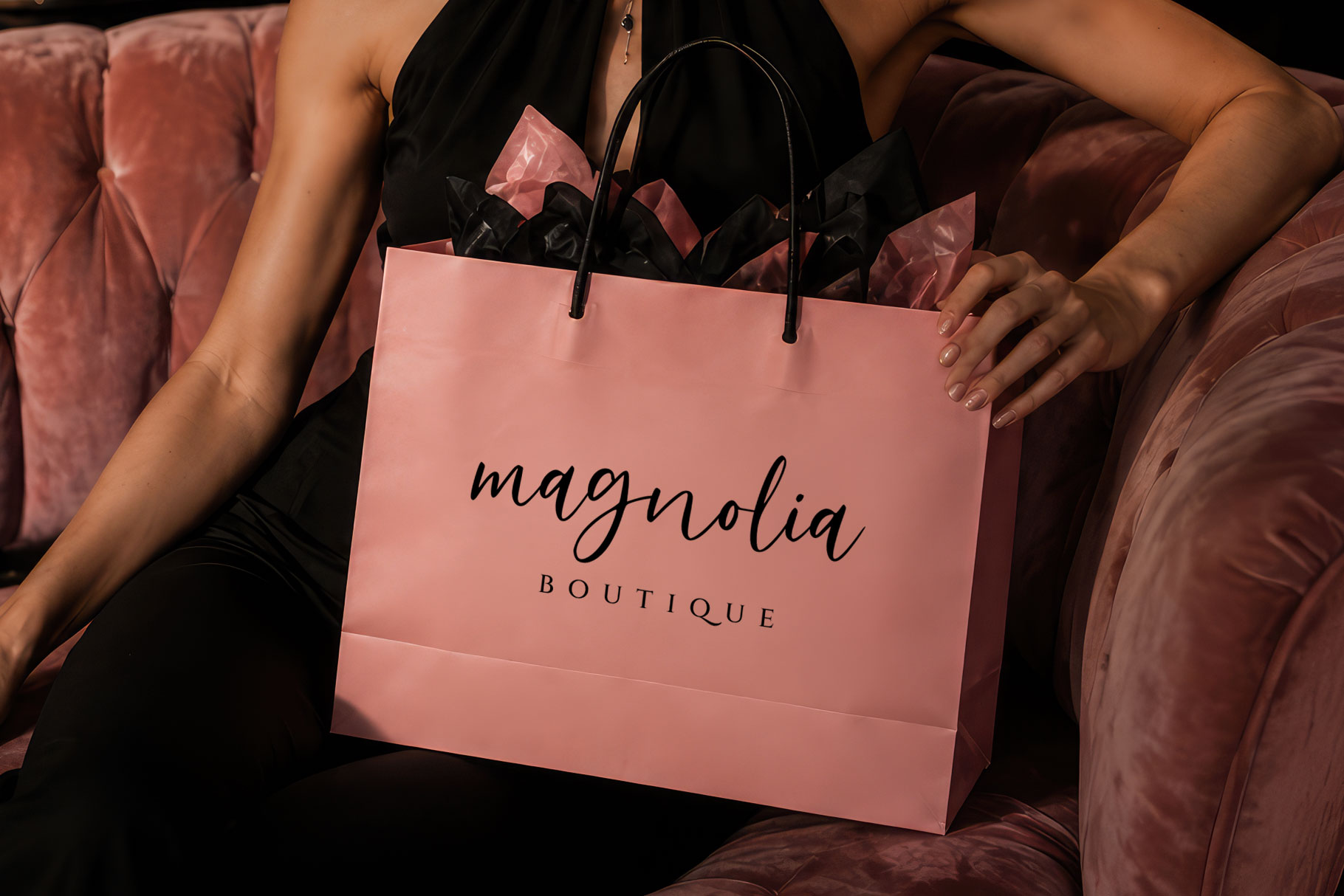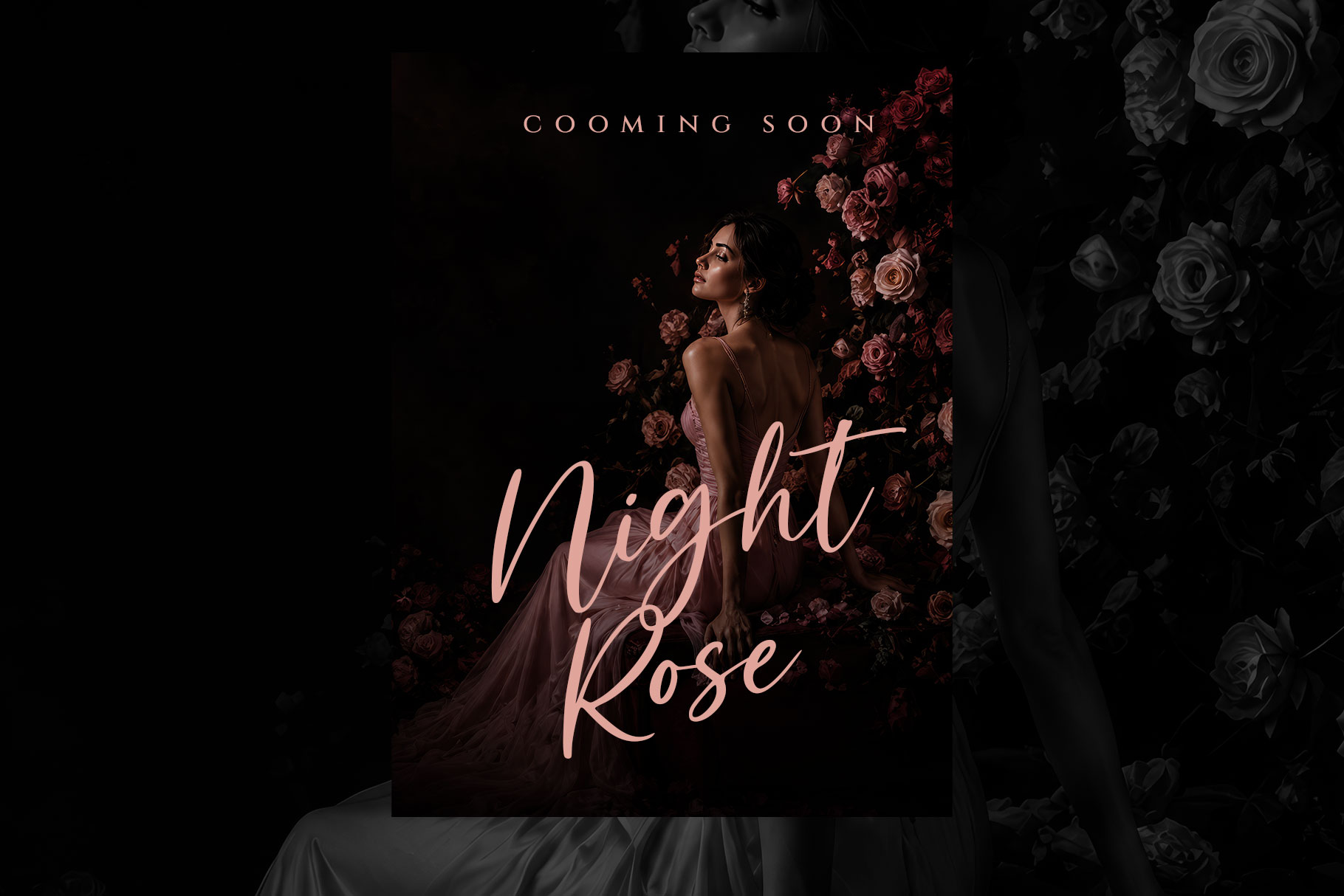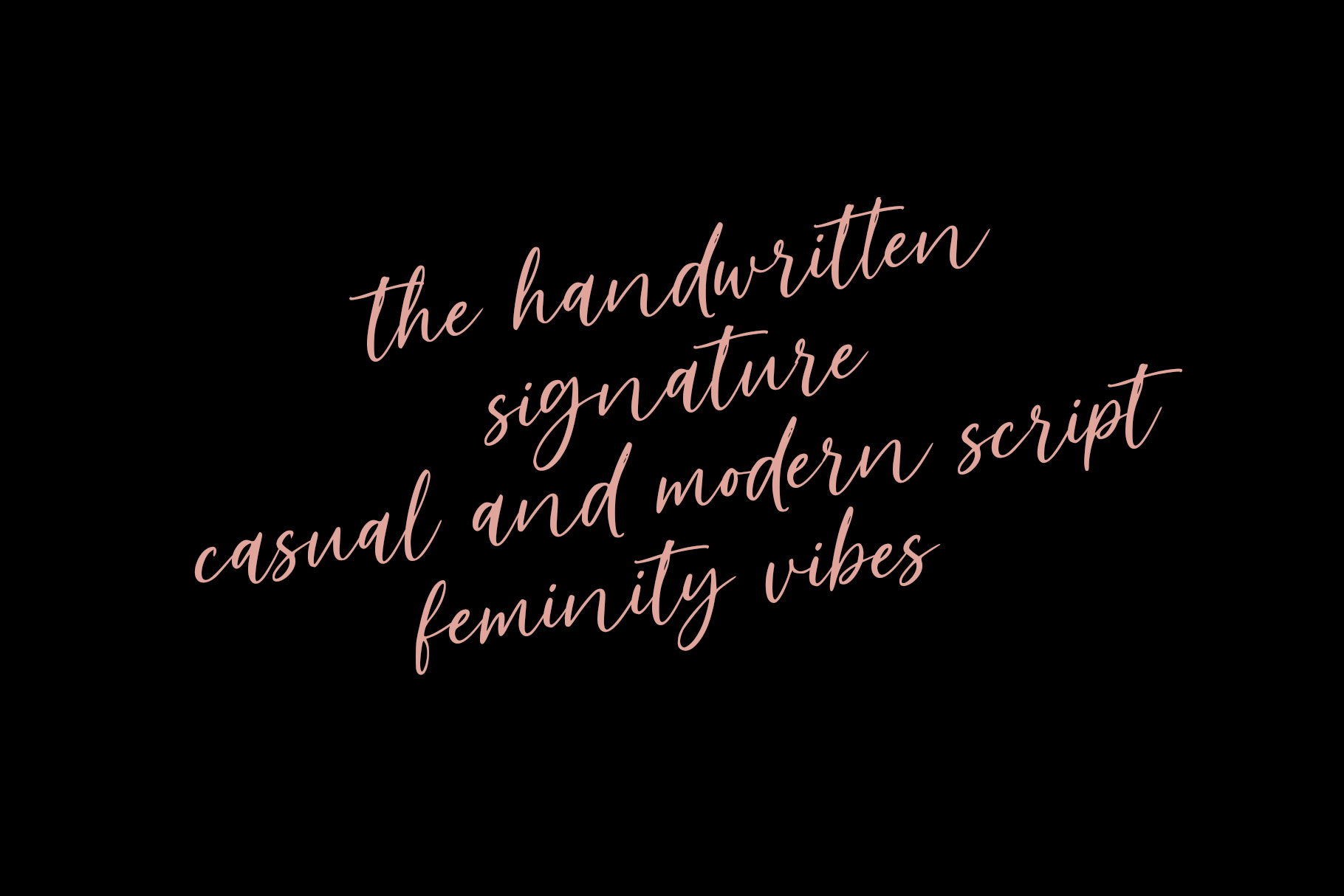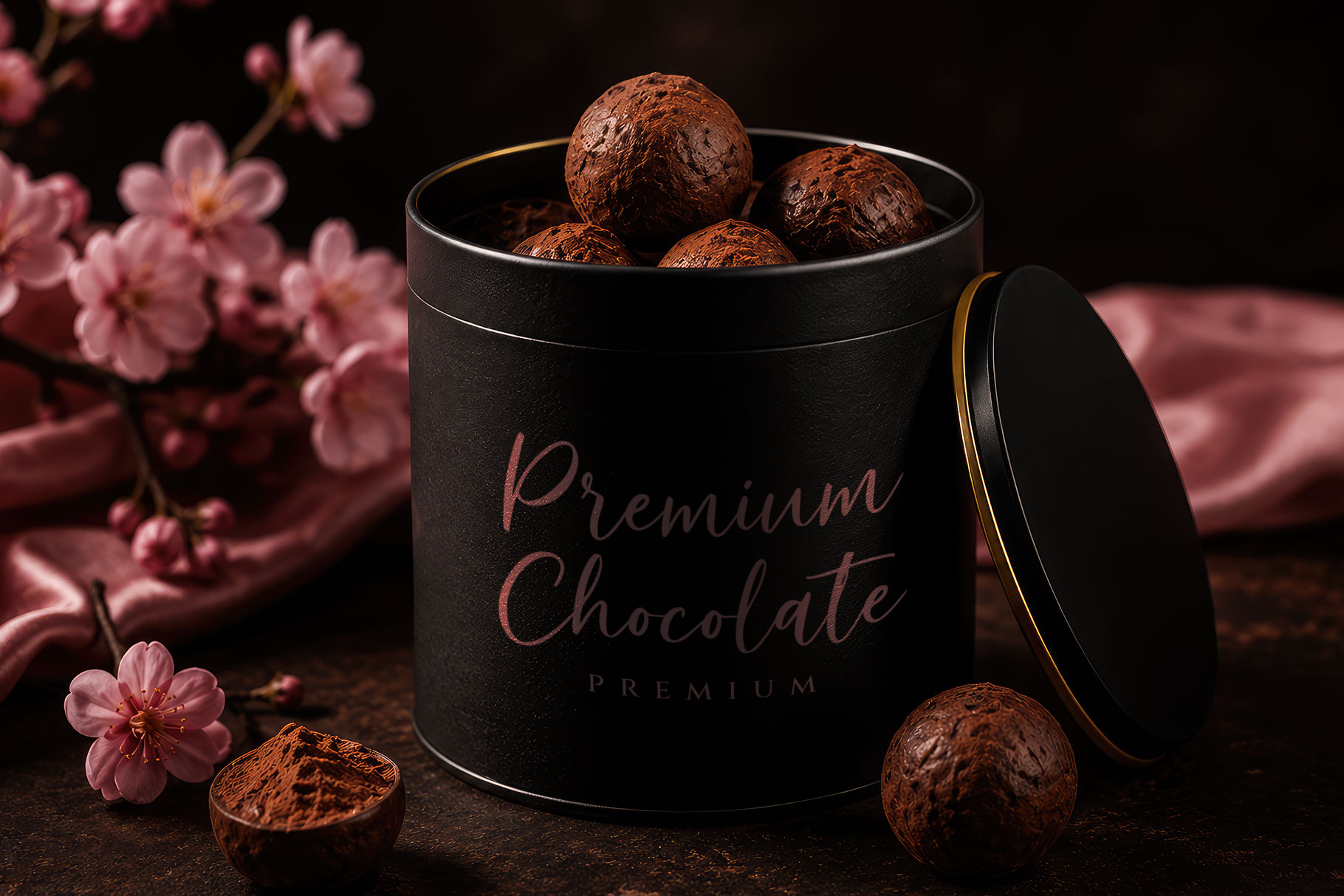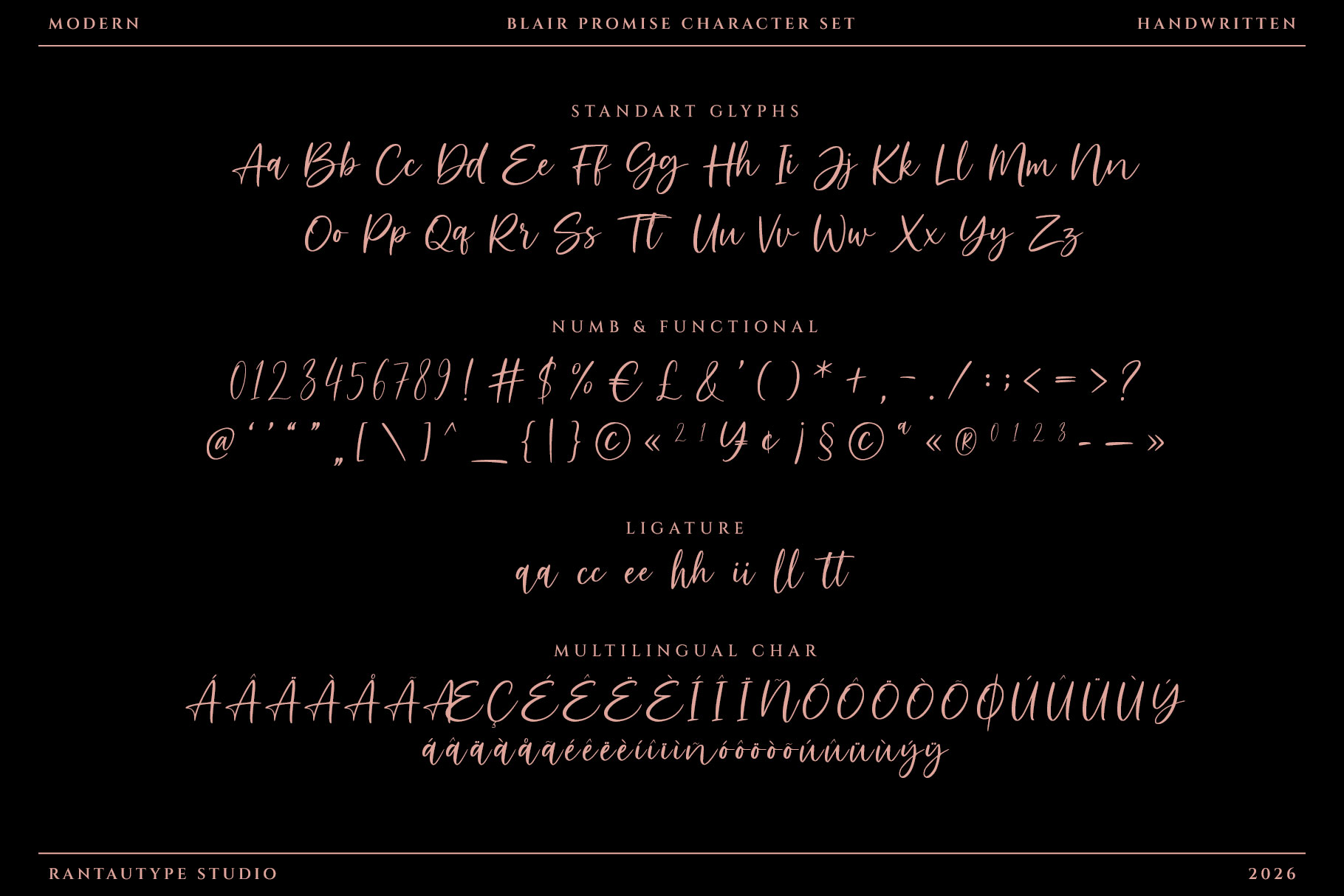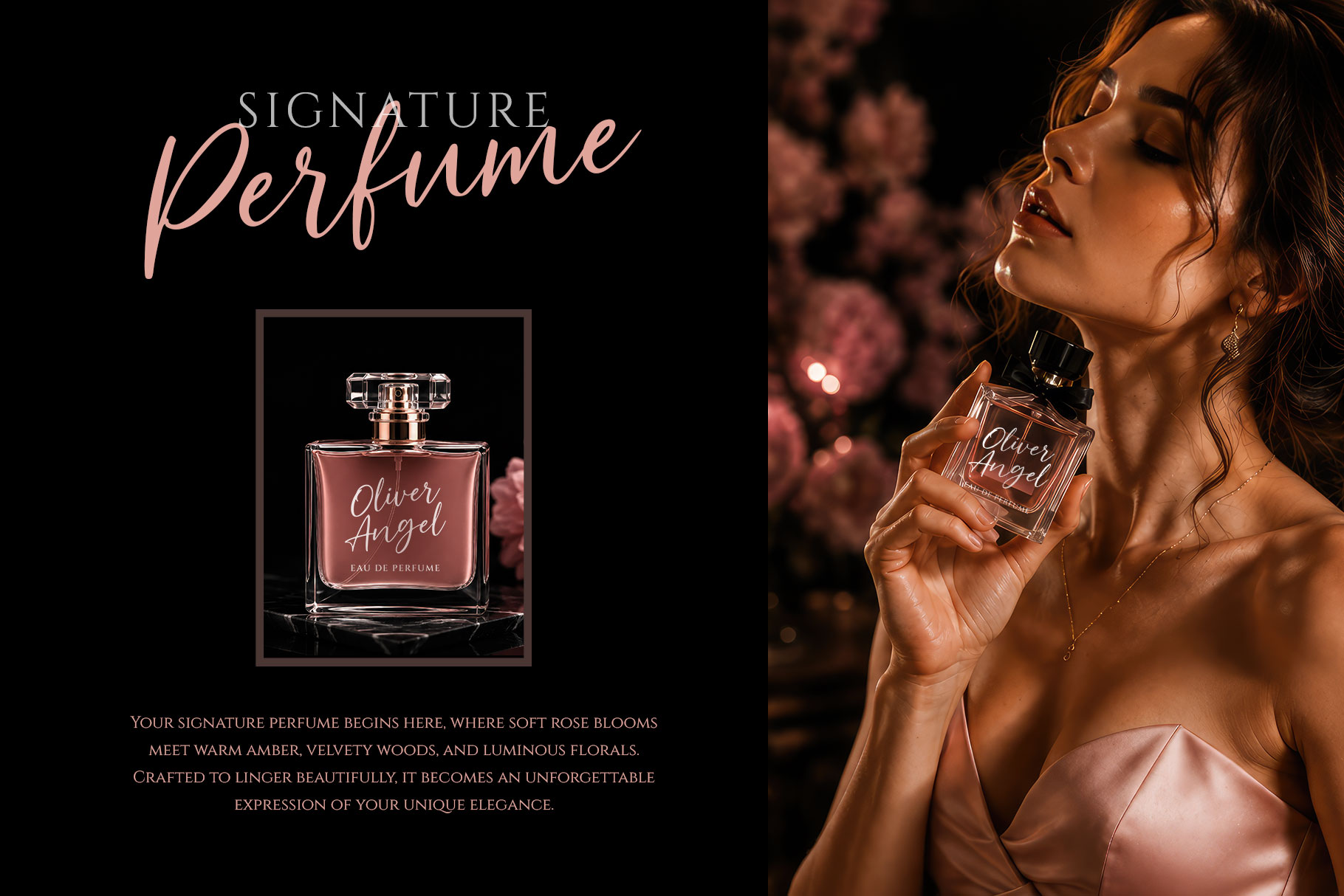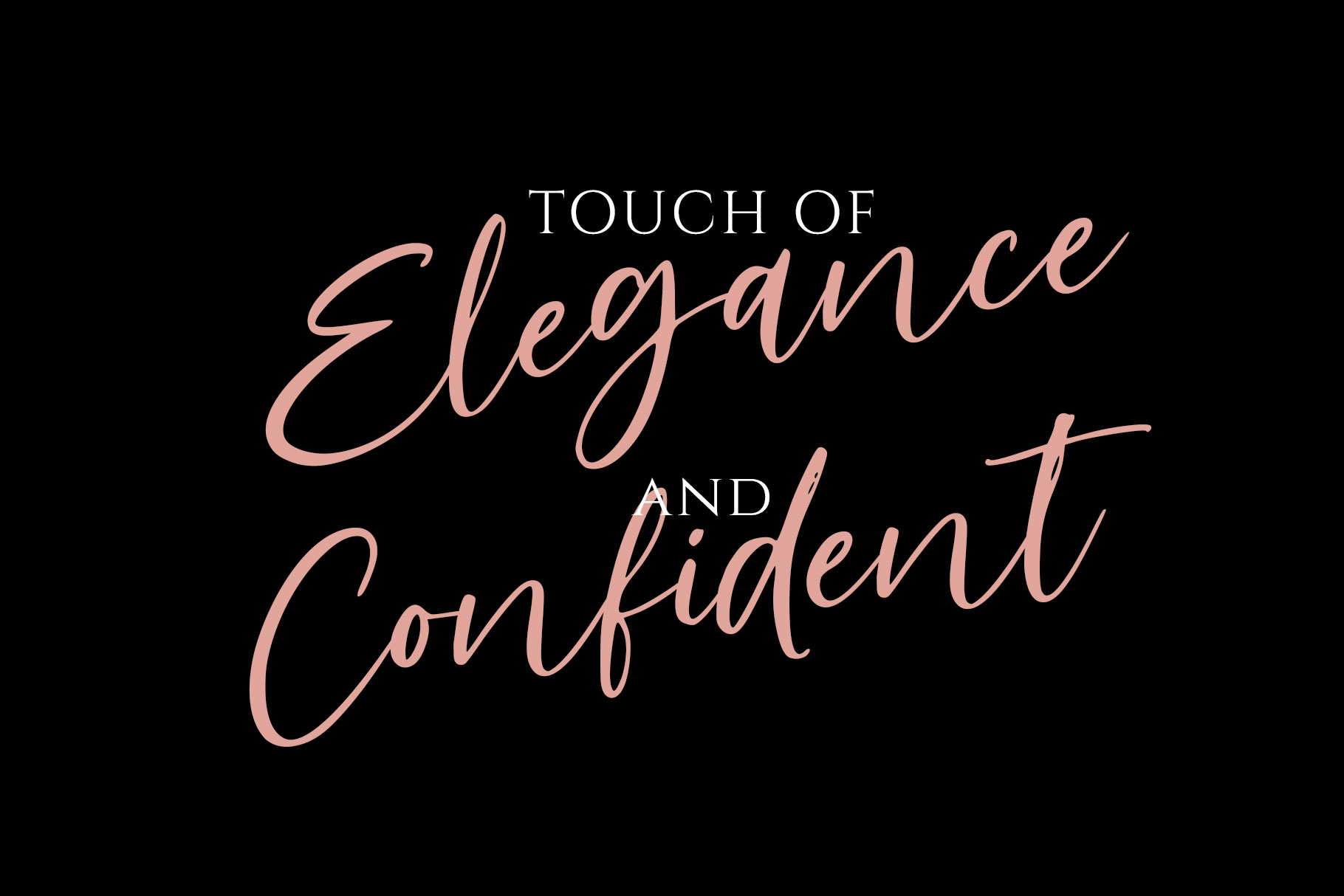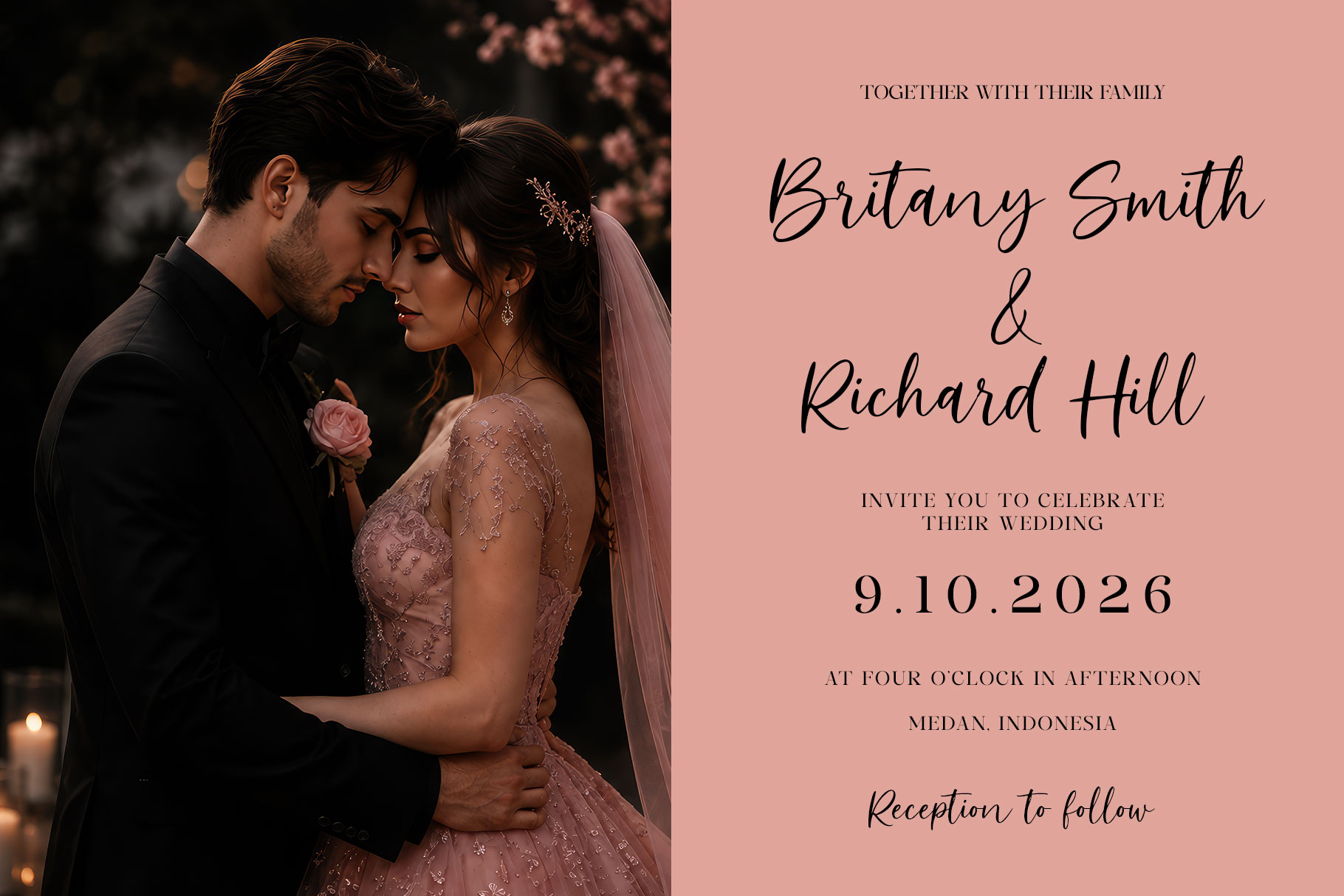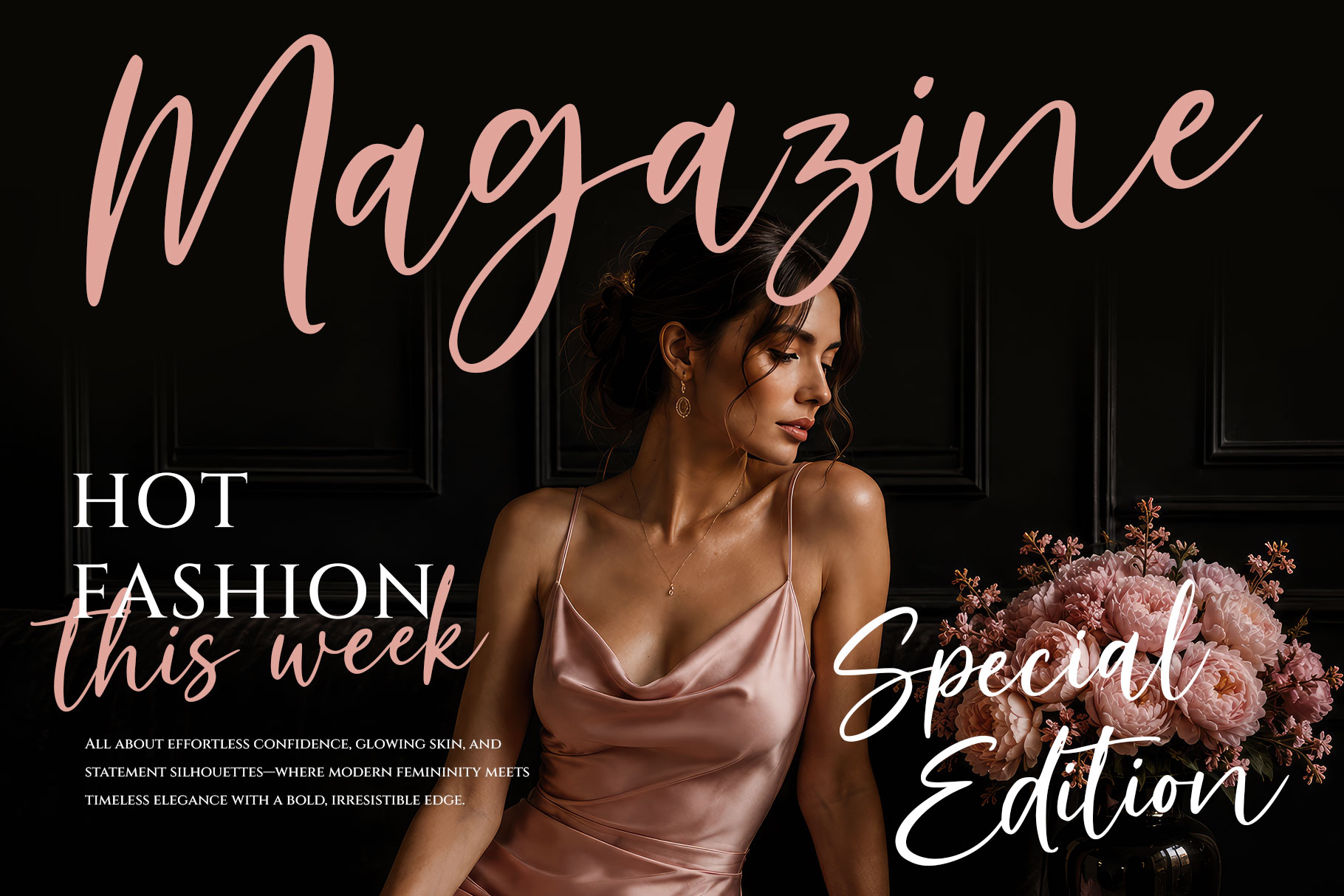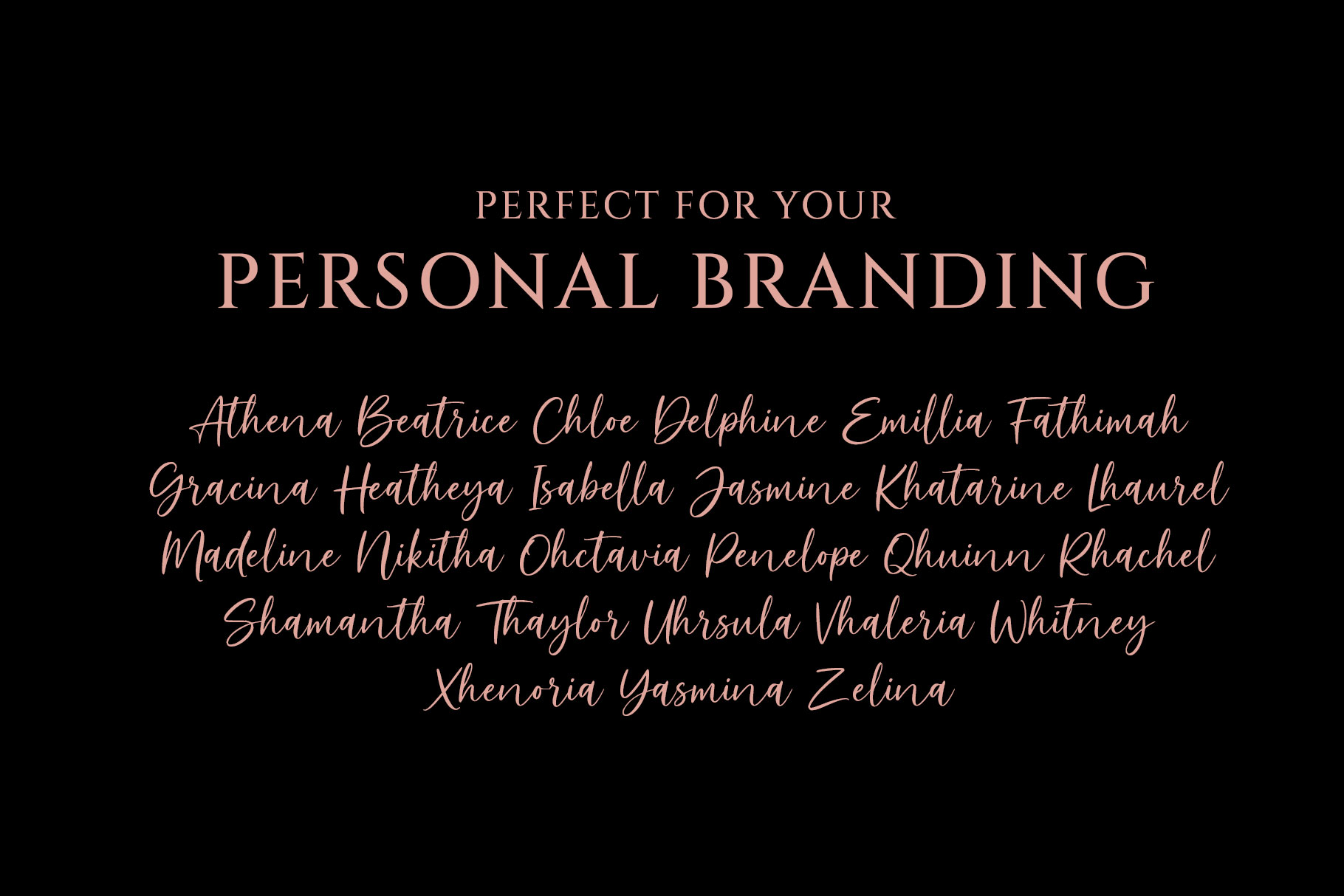
Blair Promise is modern handwritten font brings a graceful, expressive personality to every word. Its flowing strokes create an effortless sense of movement, combining feminine elegance with a contemporary, fashion-forward attitude. The letterforms feel naturally written by hand, giving the typeface warmth and personality while maintaining a polished, premium appearance.
Blair Promise is a perfectly choice for any creative endeavor, creating, modern, lifestyle design such as logotype, title, cover, branding, invitations, wedding designs, display and magazine, social media posts, advertisements, printed quotes, product packaging, corporate brand, wedding invitations, product designs, labels, photography, watermarks, special events and any other project with modern touch.
Blair Promise Modern Handwritten Font